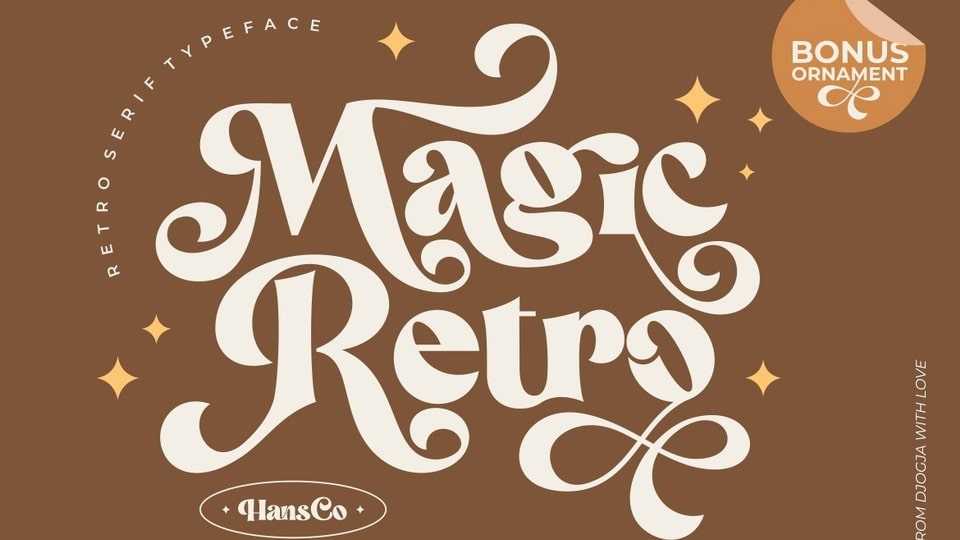
Download Magic Retro font, a charming serif typeface that feels playfully nostalgic and delivers an incredible vintage aesthetic. Use Magic Retro font to add that special touch to any design idea you can think of.
Designer: HansCo